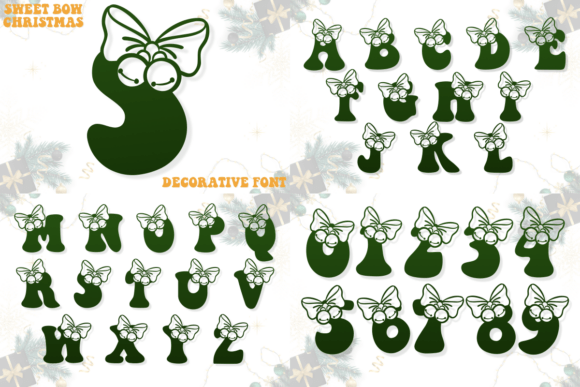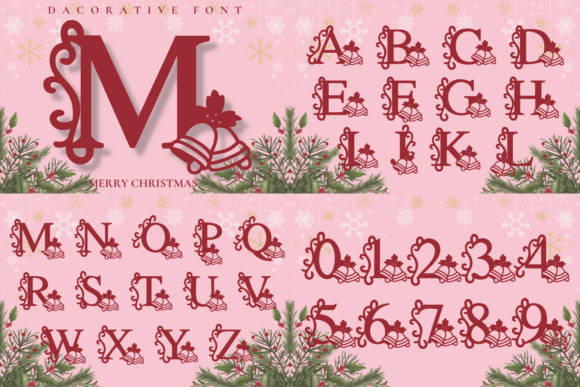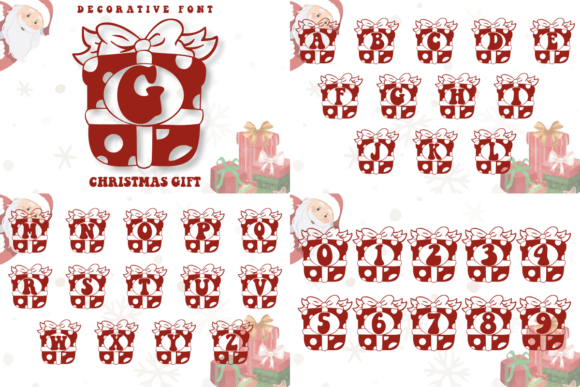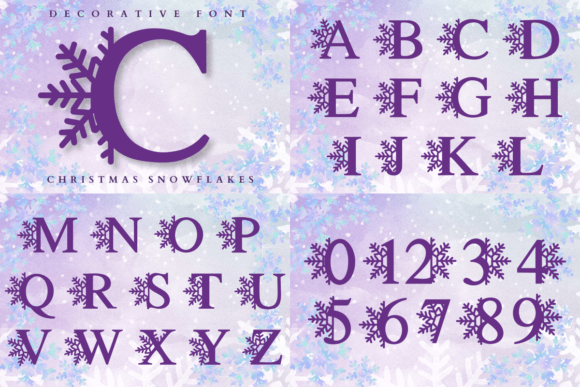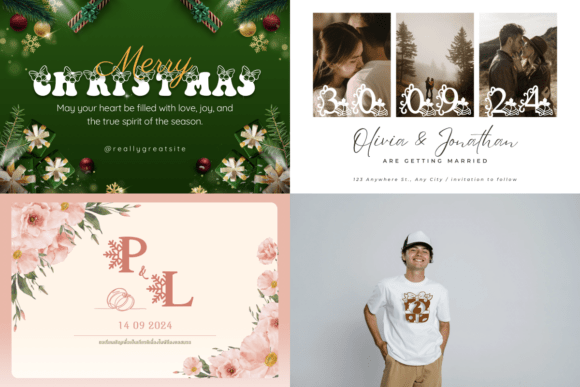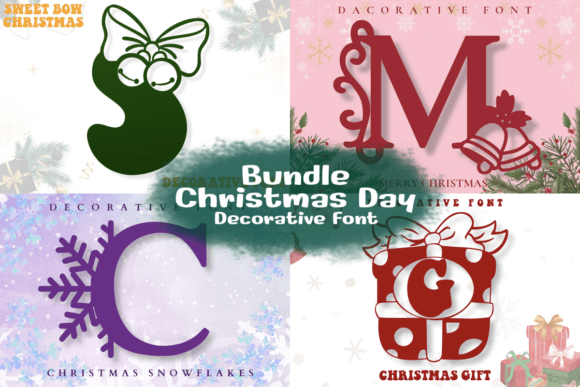
Celebrate the Season in Style with the Enchanting Christmas Day Decorative Font Bundle!
Are you looking for a unique and creative way to add some festive cheer to your holiday designs? Look no further than the Christmas Day Decorative Font Bundle! This stunning collection of decorative glyphs and stylized capitals is the perfect asset for designers and crafters who want to create beautiful, ornate, and high-impact holiday visuals.
What is the Christmas Day Decorative Font Bundle?
Unlike traditional text fonts, the Christmas Day Decorative Font Bundle is a set of decorative glyphs and stylized capitals that offer stunning, ready-made vector illustrations infused with festive cheer. This unique collection allows you to easily incorporate intricate holiday-themed elements directly into your design text, such as elegant swirls, festive bells, snowflakes, bows, and gift box motifs carved directly into the letterforms.
What Can You Create with the Christmas Day Decorative Font Bundle?
The possibilities are endless with the Christmas Day Decorative Font Bundle! This versatile collection is ideal for a wide range of holiday projects, including:
- Holiday monograms: Add a touch of elegance and sophistication to your holiday monograms with the intricate designs and decorative glyphs in this bundle.
- Christmas card designs: Create stunning and unique Christmas cards that will stand out from the crowd with the help of this decorative font bundle.
- Festive signage: Add some festive flair to your holiday signage with the bold and colorful designs in this bundle.
- Personalized gift tags: Create personalized and thoughtful gift tags that will make your gifts truly special.
- Decorative apparel: Add some holiday cheer to your apparel designs with the fun and festive designs in this bundle.
Benefits of Using the Christmas Day Decorative Font Bundle
The Christmas Day Decorative Font Bundle offers a range of benefits for designers and crafters, including:
- Ease of use: This decorative font bundle is easy to use and requires no complex graphic editing skills.
- Time-saving: With ready-made vector illustrations, you can save time and effort in creating your holiday designs.
- Customization: The bundle allows you to customize your designs with intricate holiday-themed elements.
- High-impact visuals: Create stunning and high-impact holiday visuals that will grab attention.
Why Choose the Christmas Day Decorative Font Bundle?
If you’re looking for a unique and creative way to add some festive cheer to your holiday designs, the Christmas Day Decorative Font Bundle is the perfect choice. Here are just a few reasons why:
- Unique designs: The bundle offers a range of unique and intricate designs that will make your holiday designs stand out.
- Versatility: The bundle is versatile and can be used for a wide range of holiday projects.
- Easy to use: The bundle is easy to use and requires no complex graphic editing skills.
- High-quality: The bundle offers high-quality vector illustrations that are perfect for printing and digital use.
The Christmas Day Decorative Font Bundle is a must-have for designers and crafters who want to create beautiful, ornate, and high-impact holiday visuals. With its unique and intricate designs, ease of use, and versatility, this bundle is the perfect asset for adding a personalized and artistic touch to all your seasonal projects. So why wait? Get your Christmas Day Decorative Font Bundle today and start creating stunning holiday designs that will impress!
Key Features of the Christmas Day Decorative Font Bundle:
- Set of decorative glyphs and stylized capitals
- Ready-made vector illustrations infused with festive cheer
- Elegant swirls, festive bells, snowflakes, bows, and gift box motifs
- Ideal for holiday monograms, Christmas card designs, festive signage, personalized gift tags, and decorative apparel
- Easy to use and requires no complex graphic editing skills
- High-quality vector illustrations perfect for printing and digital use